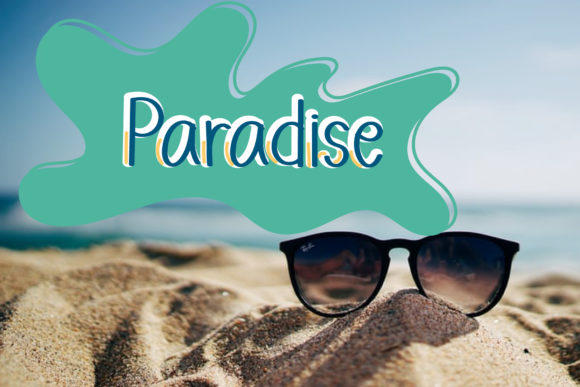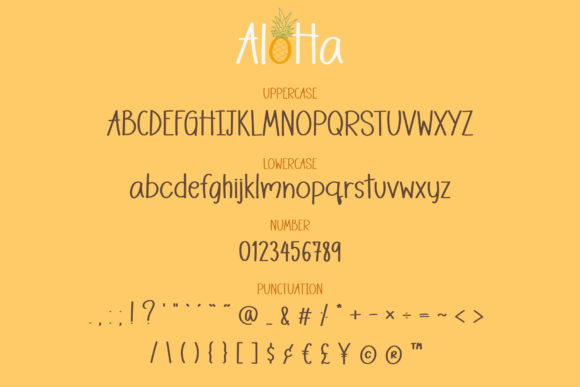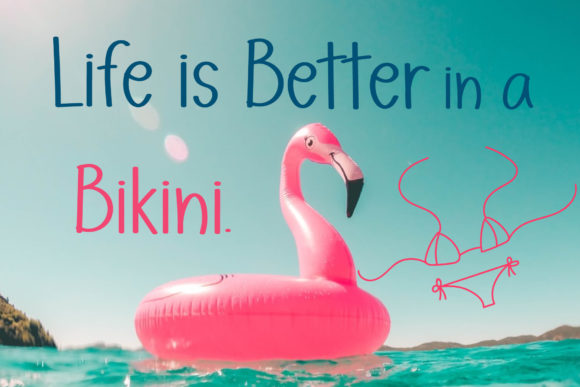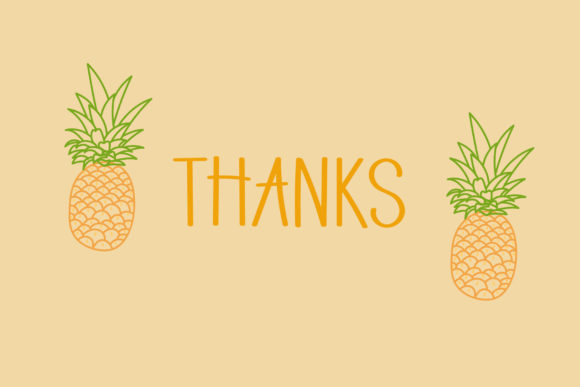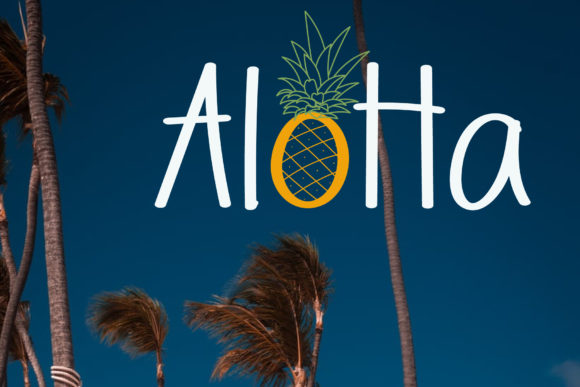
The Aloha Font: A Friendly and Versatile Companion for Your DIY Projects
I’ll never forget the moment I stumbled upon the Aloha font. I was working on a last-minute project for a client who wanted a fun, casual vibe, but I was struggling to find the perfect font to match their vision. That’s when I discovered Aloha – a cute and casual handwritten font that instantly brought a smile to my face. Its incredibly friendly feel was exactly what I needed to bring the project to life, and I’ve been hooked ever since.
What I Love About Aloha ✨
• ✅ The friendly and approachable feel that’s perfect for DIY projects, greeting cards, and social media graphics
• ✅ A wide range of OpenType features, including glyphs and stylistic alternates, that allow for endless customization
• ✅ A unique and playful personality that sets it apart from more traditional fonts
• ✅ Easy to read and understand, even in smaller sizes
• ⚠️ Some users may find the font a bit too casual or playful for certain projects, such as formal events or business branding
• ⚠️ Limited availability of certain special characters or diacritical marks
The Story Behind Aloha: A Designer Inspiration
Aloha was designed by a talented typographer who wanted to create a font that would evoke the warmth and hospitality of the Hawaiian islands. With its friendly feel and approachable personality, Aloha is the perfect companion for any DIY project that needs a touch of personality and whimsy.
Q: What makes Aloha font so special?
Aloha font is special because of its incredibly friendly feel and unique personality. Its OpenType features, glyphs, and stylistic alternates make it versatile and customizable.
Q: Is Aloha suitable for body text?
While Aloha is a beautiful font, it’s best suited for headings, titles, and short paragraphs. For longer body text, you may want to choose a font that’s easier to read in smaller sizes.